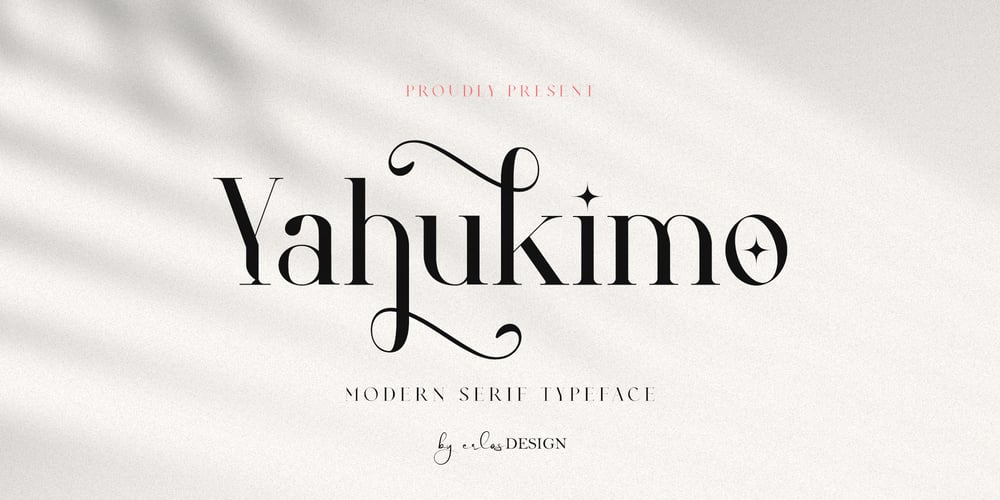
Yahukimo Font Family was designed by Erlangga Suherman and published by ErlosDesign. Yahukimo contains 1 styles and family package options. Yahukimo is a serif font with a modern style, perfect for posters, web design, magazine covers, album covers, branding, and many other creative ideas.